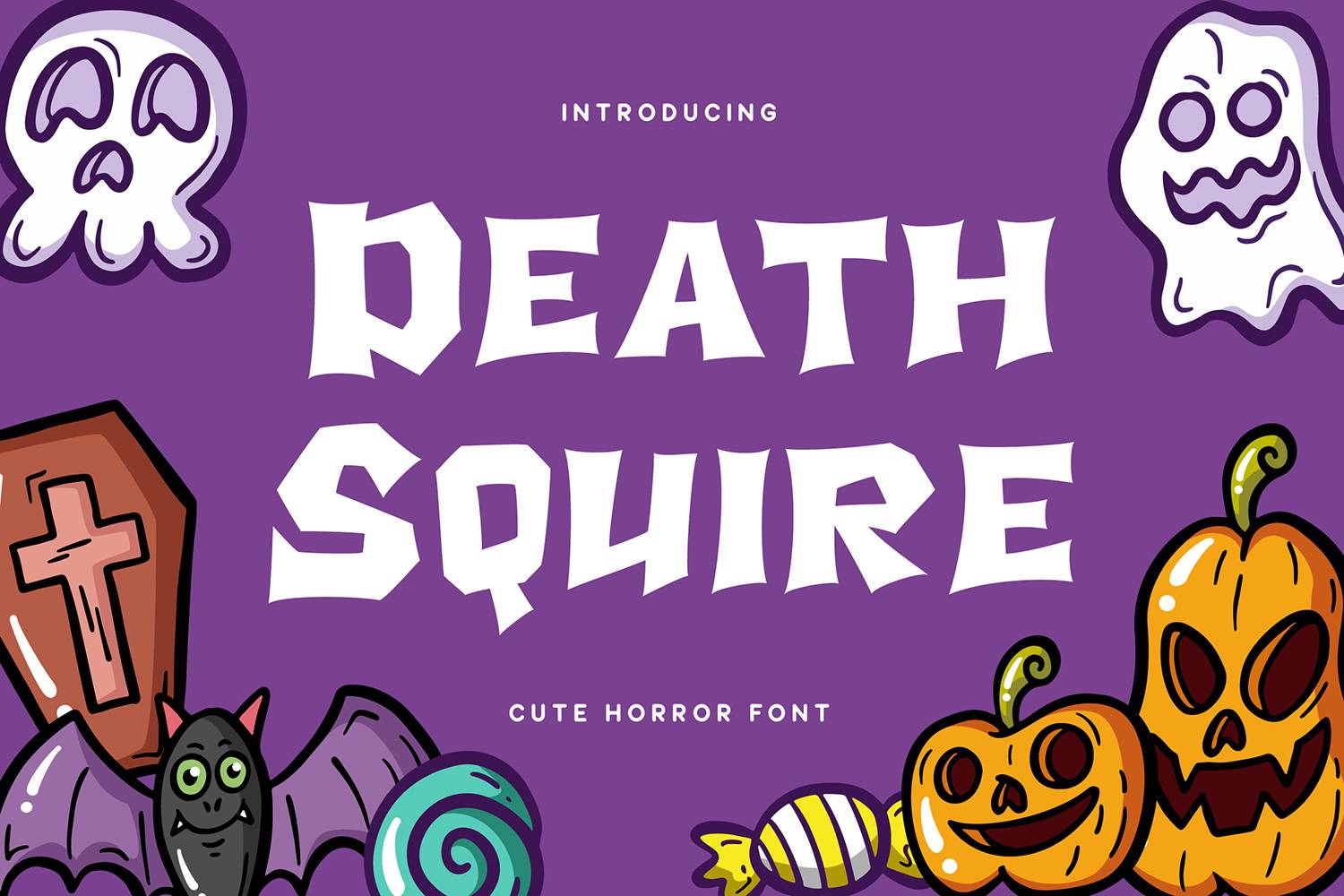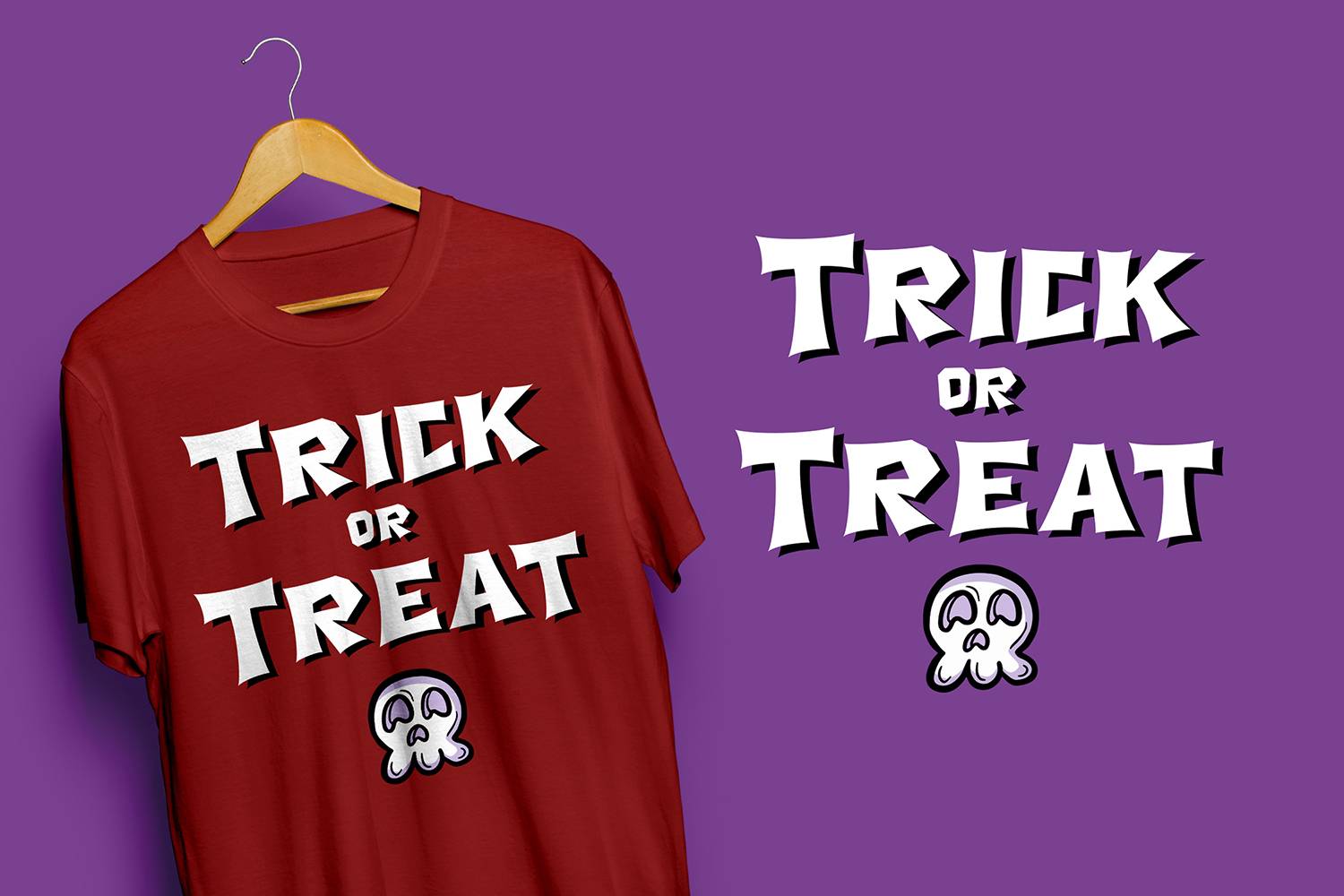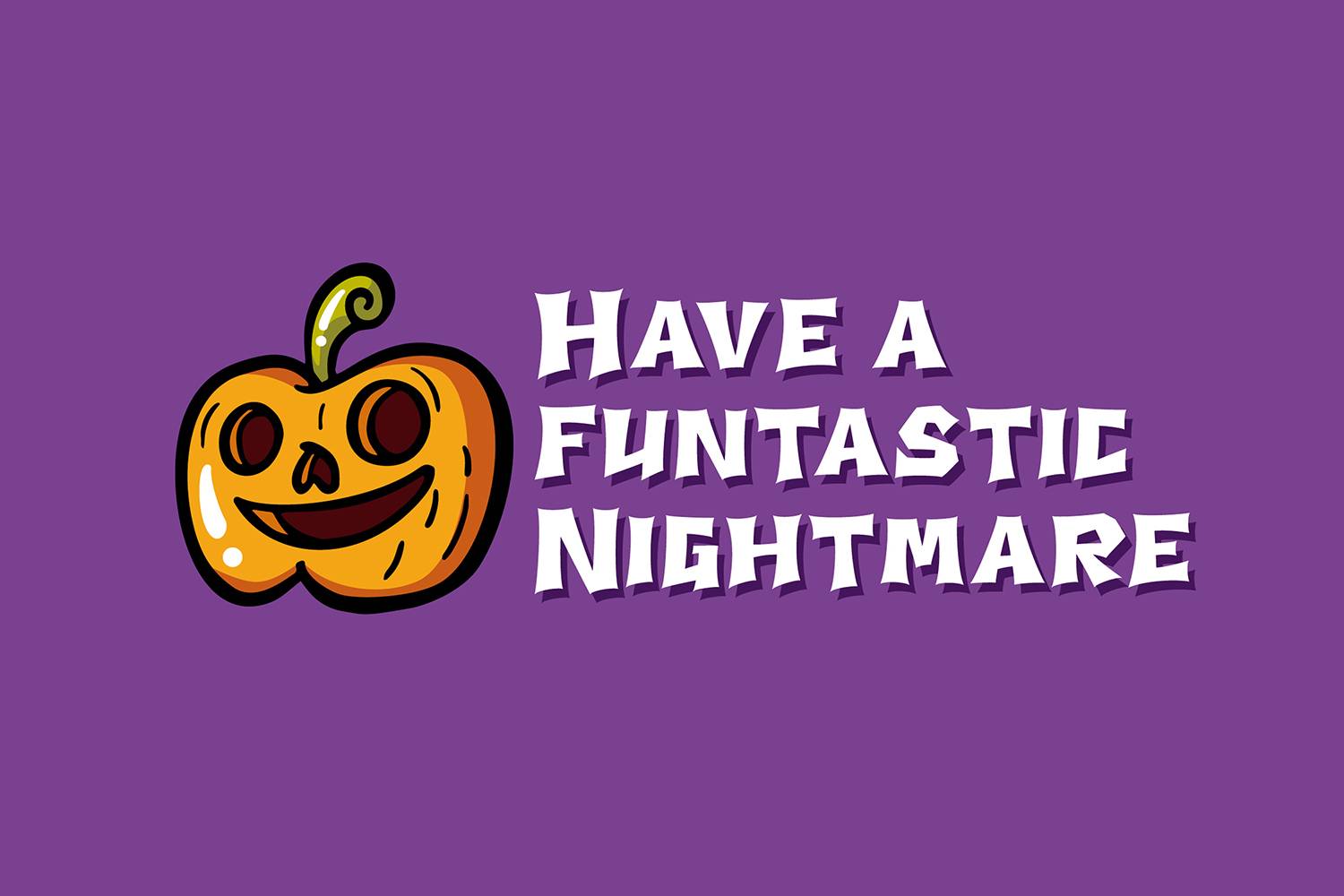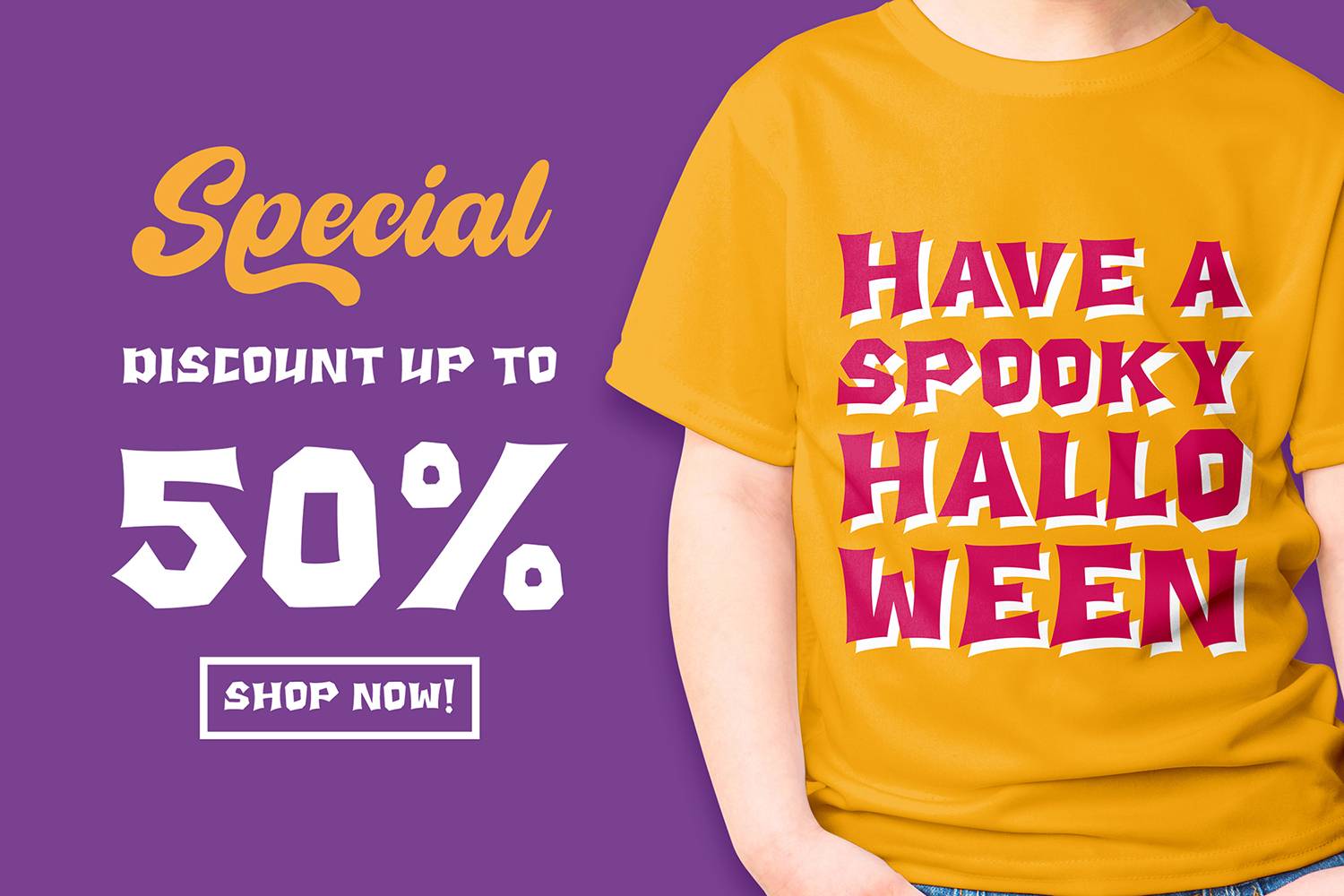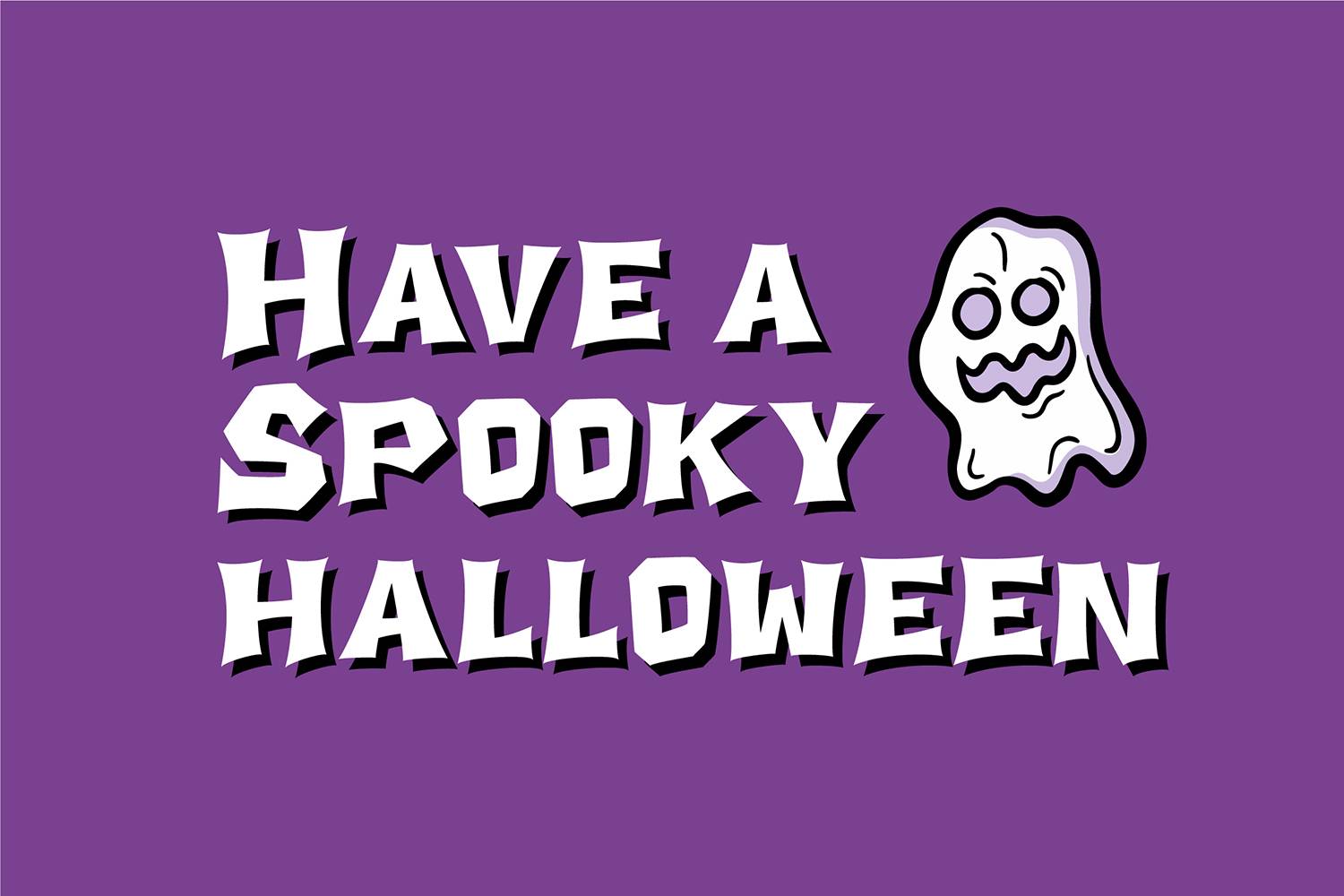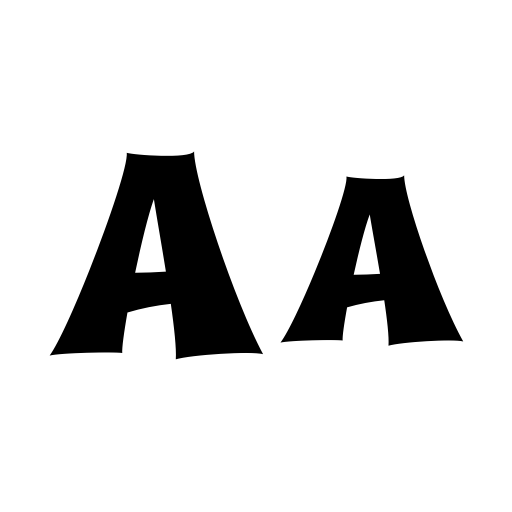
Death Squire is a bold, condensed display font with an edgy, gothic vibe, featuring sharp, irregular strokes and stylized letterforms that give it a unique, energetic personality. Its all-caps design with jagged edges and slightly rough texture makes it ideal for impactful headlines, posters, and branding that seek a dark, rebellious, or horror-themed aesthetic. This font works best for creative projects that want to grab attention with a strong, dramatic presence.
Death Squire Font
About Death Squire Font
| Font family | Death Squire Font |
| Designer | Akhmad Reza Fauzi |